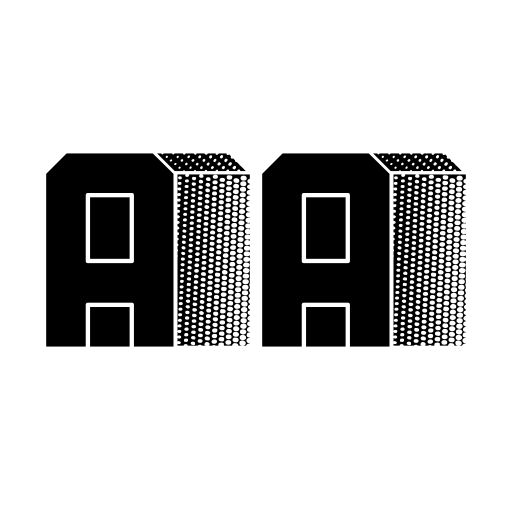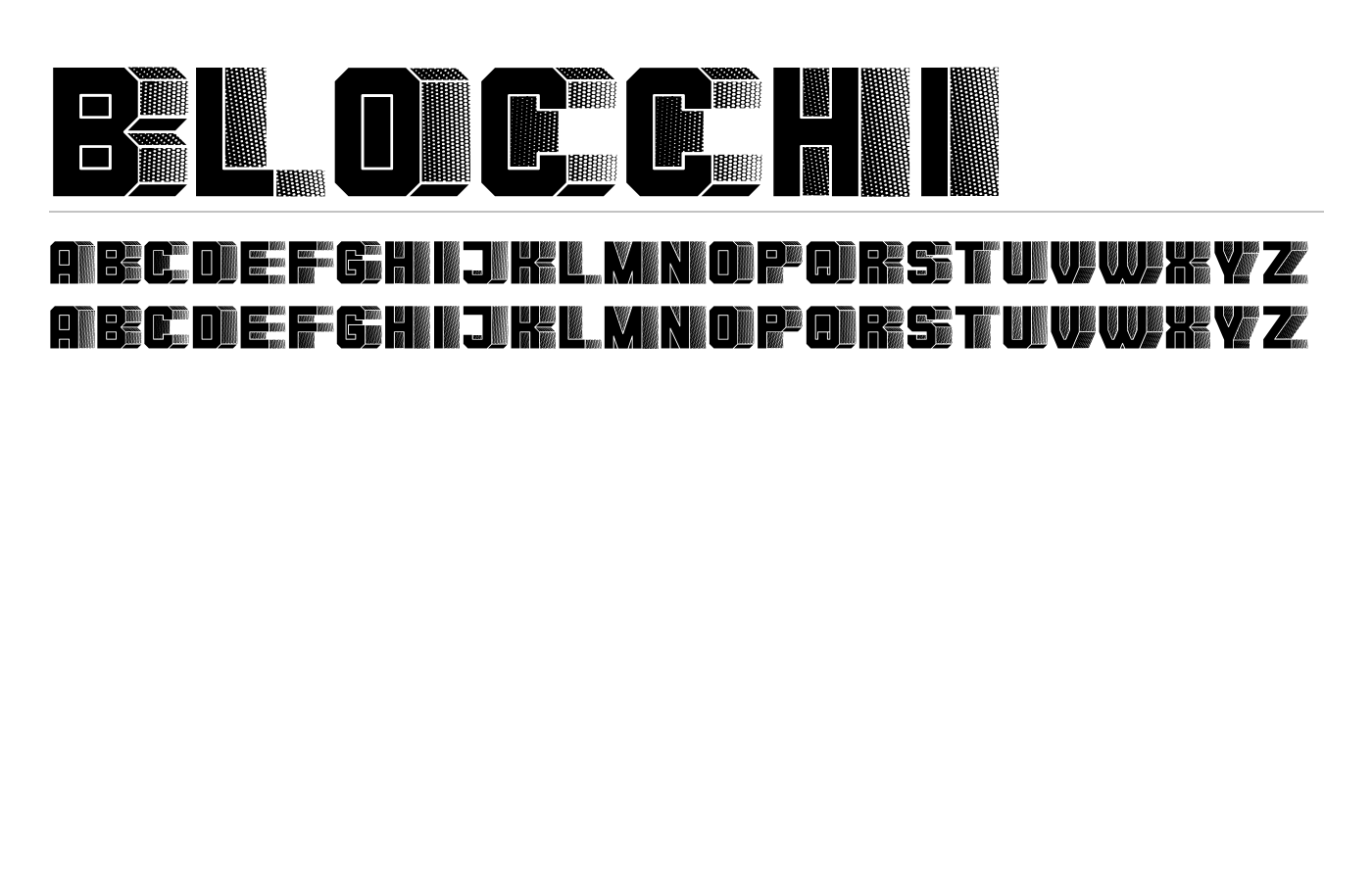
Blocchi Font is a bold, geometric sans serif display typeface with a striking 3D shading effect that adds depth and texture to each letter. Its heavy weight and condensed style make it ideal for impactful headlines, posters, and branding that demand attention with a modern, industrial feel. This font works especially well in creative and urban contexts where a strong, dynamic presence is desired.
Blocchi Font
About Blocchi Font